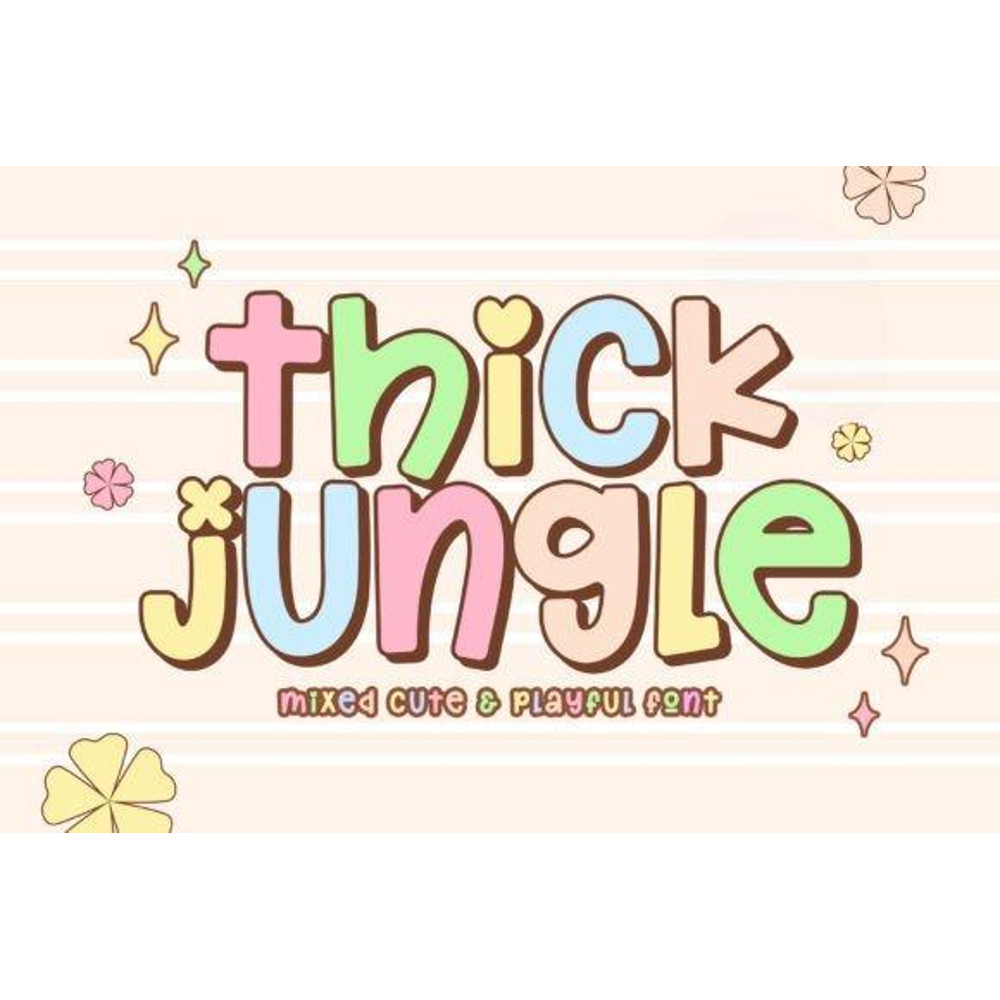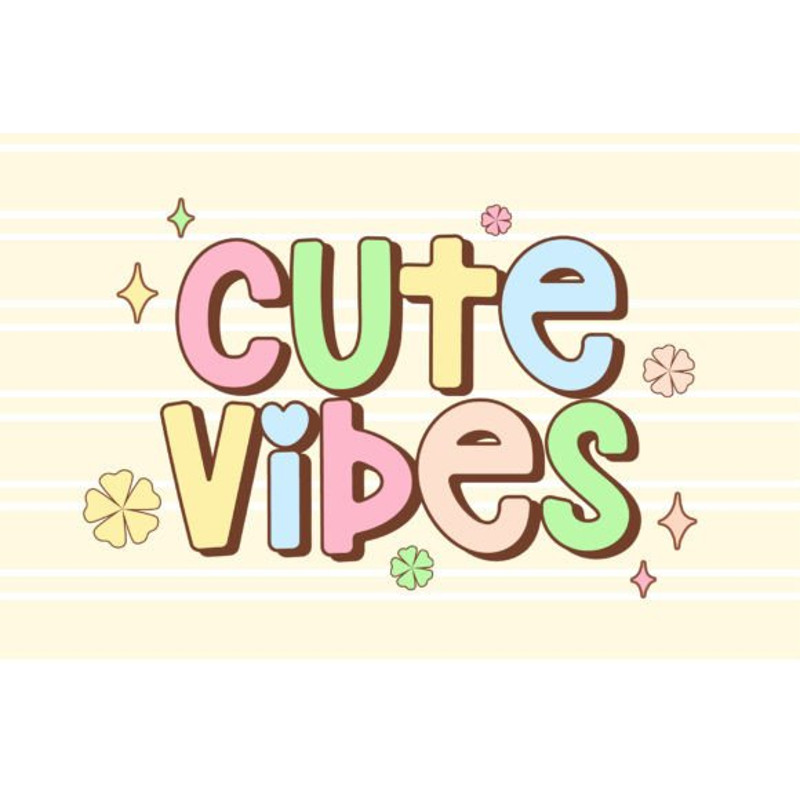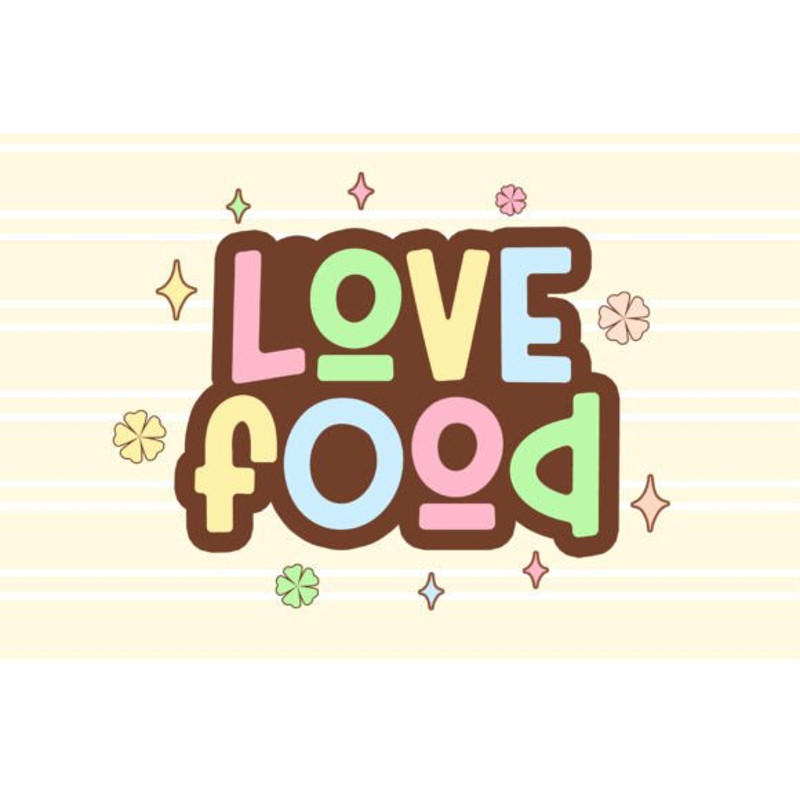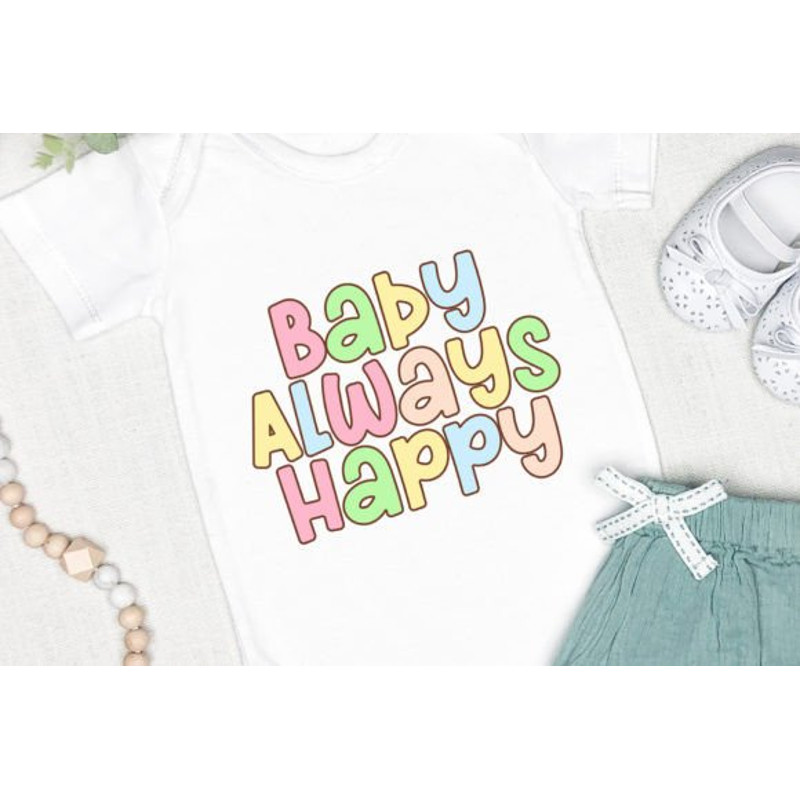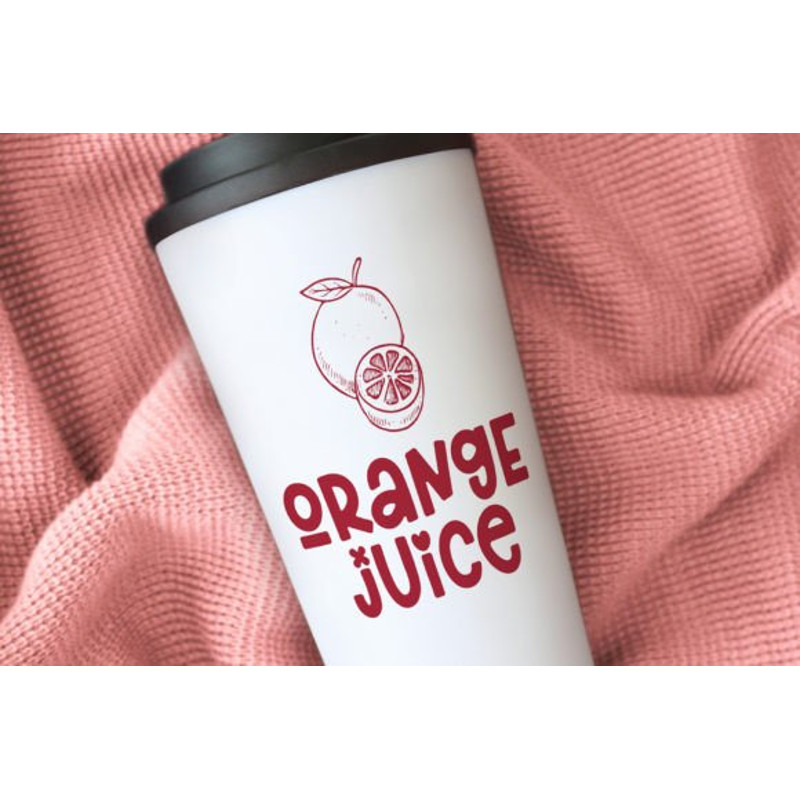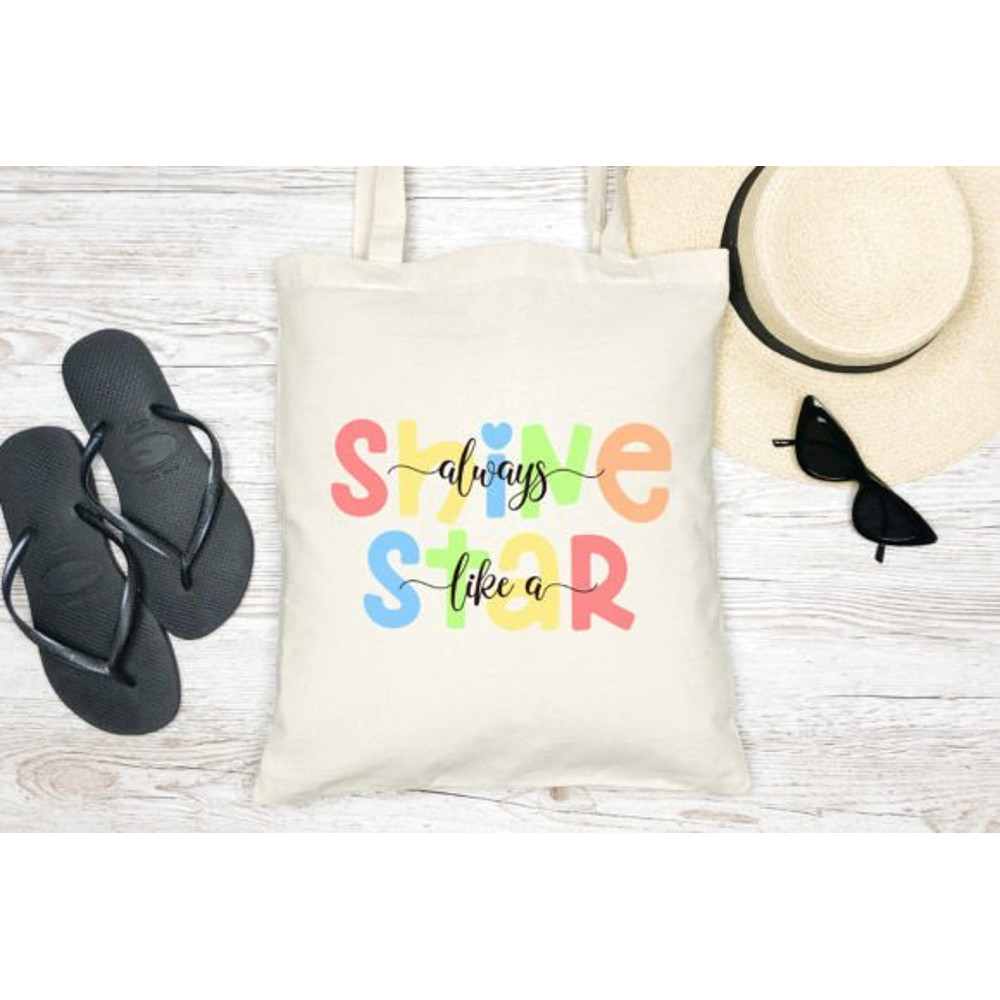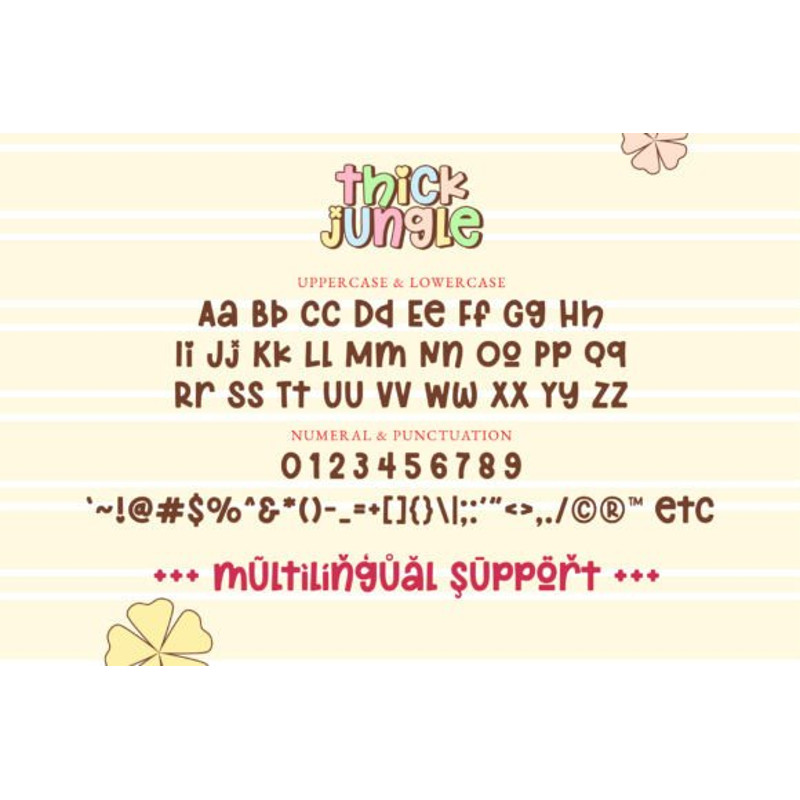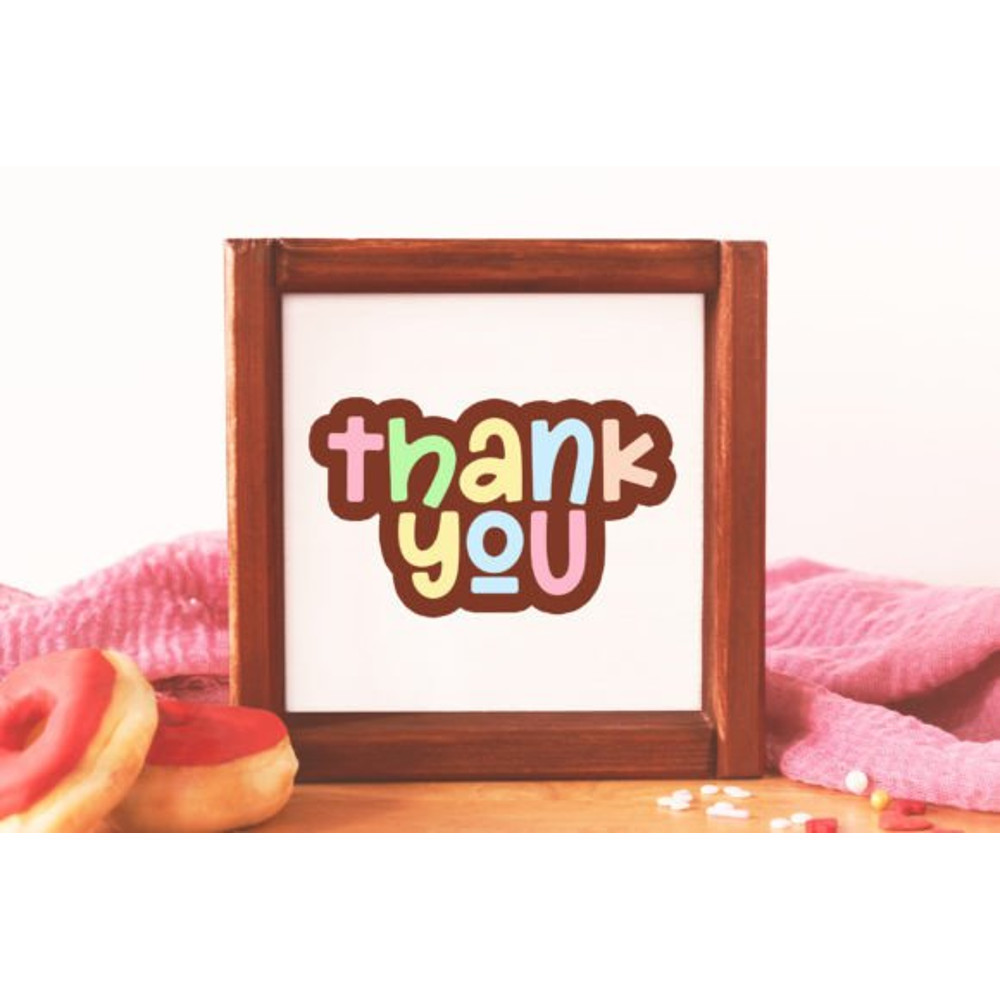
Thick Jungle Font
Thick Jungle is fun and cute font. It has playful and whimsical touch. The uppercase and lowercase can be mixed to create more cuteness.
Thick Jungle is perfect for design fun and cute touch, such as school design, birthday invitation, summer design, holiday, t-shirt design, crafting, sticker, sublimation, and many more.